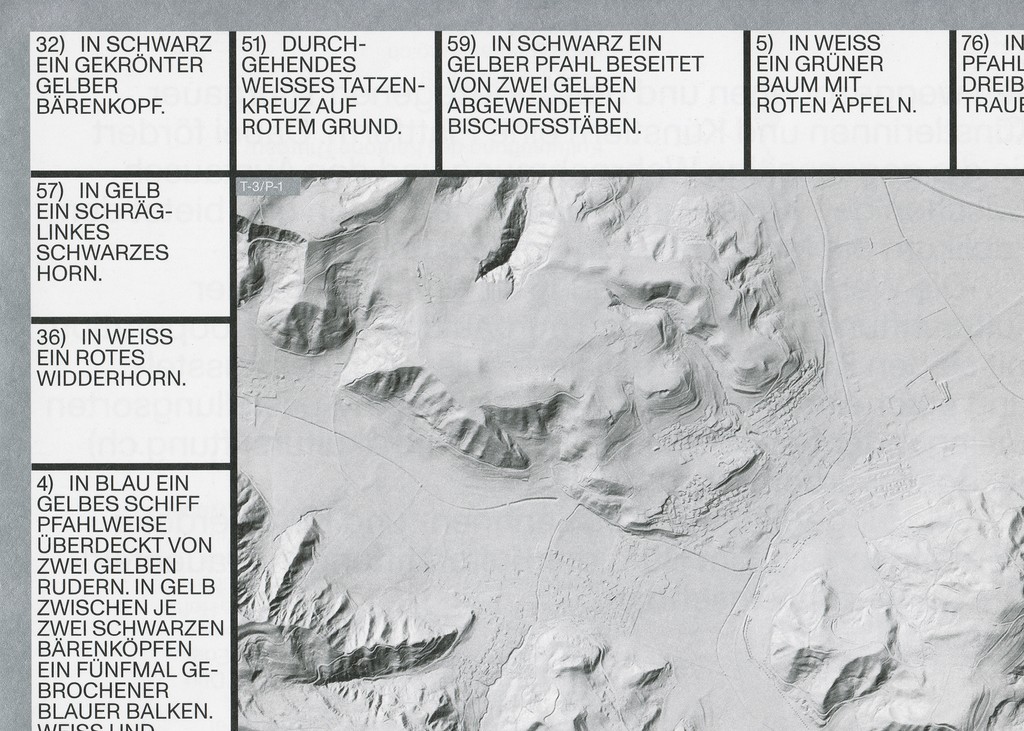
Monument Grotesk Cyrillic
Single Story a, 2015 r
Kasper
2014 r
Florio
Display Punctuation Heavy
About Monument Grotesk Кириллица Cyrillic
About this typeface
ABC Monument Grotesk owes its point de départ to a few intriguing contours that the Swiss design studio Kasper-Florio stumbled across in an online scan of the foundry Palmer & Rey’s 1884 New Specimen Book. Compelled by the letterforms’ compact skeleton, high vertical contrast, and surprisingly sharp end strokes, Kasper-Florio digitized and reinterpreted the typeface for contemporary use. Ever since, the design has served as the studio’s house typeface, and it’s been available to the public via Dinamo since 2018.
Featuring honest, unrefined, and idiosyncratic shapes, ABC Monument Grotesk is a distinctively confident font with a raw and pleasingly unpolished feel. It’s available in seven different weights, including Italic, Mono, and Semi-Mono cuts, as well as Heavy and Black with corresponding Italics.
Latin Design: Kasper-Florio (Larissa Kasper & Rosario Florio) and Dinamo (Robert Janes, Fabiola Mejía)
Cyrillic Design: Daria Cohen
Production: Dinamo (Renan Rosatti)
Chunky Move. Design by M35
OFFTA Festival. Identity by Supersystème
EGO DEATH. Design by Mouthwash Studio
Kaleidoscope Magazine. Design by Kasper Florio
OM Cosmetics. Design by Navarra
Data Centers. Design by Jonas Vögeli (Hubertus)
LACAPELLA. Design by Folch Studio
BELLA triste — Zeitschrift für junge Literatur. Design Elfi Handina Murandu, Vivien Sorrentino
Adidas x Prada. NFT. Zach Liebermann.
Ping Pong. Design by Ollie Schaich Studio
Dazed magazine, issues #268 and #269. Design by Jamie Reid, Eva Nazarova